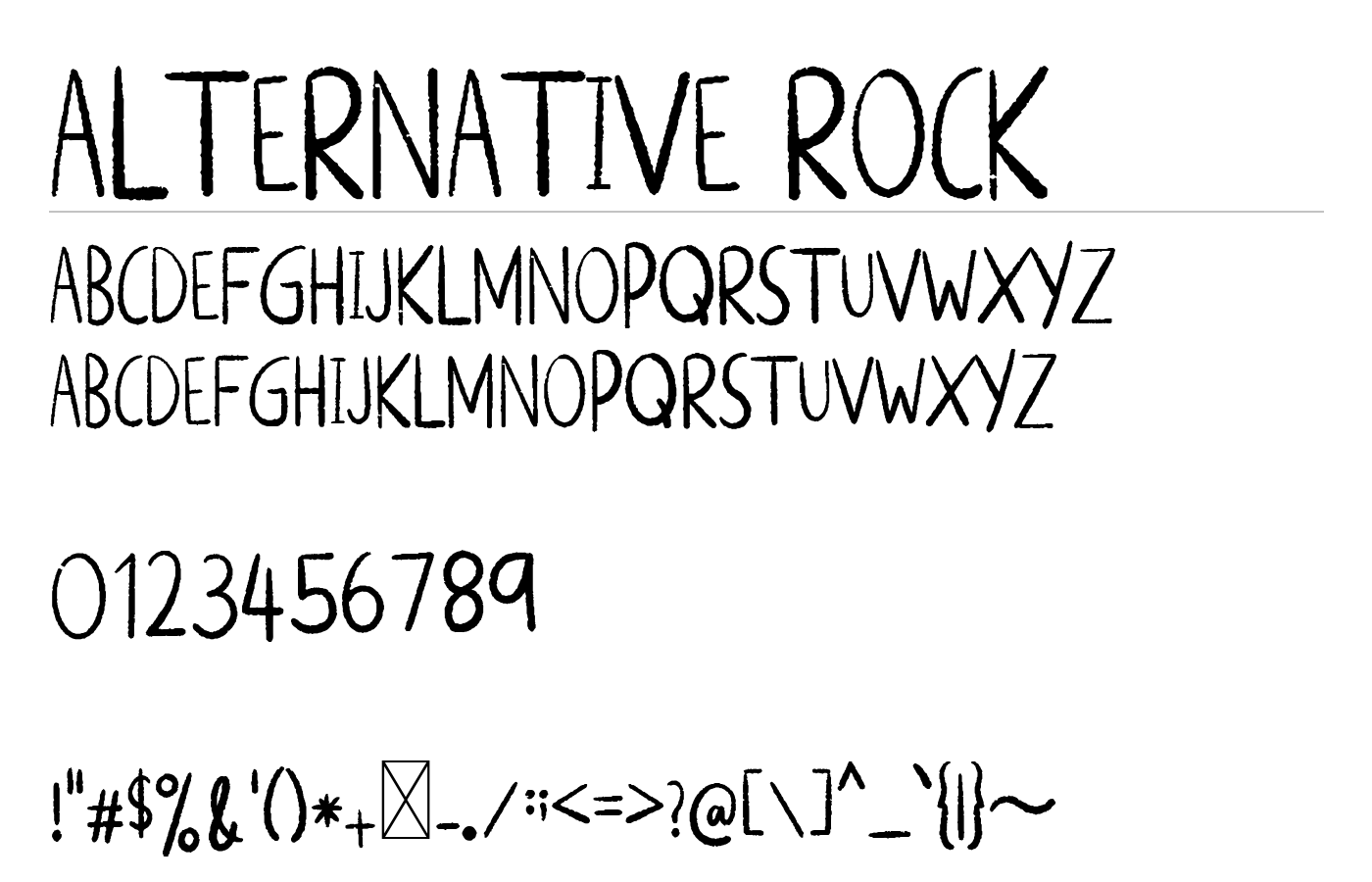
Alternative Rock is a quirky, hand-drawn sans serif font that brings a casual, playful vibe with its tall, narrow letterforms and uneven strokes. Its irregular shapes and slightly textured lines give it a raw, energetic feel, making it perfect for creative projects, youth-focused branding, or music-related designs that want to convey an edgy, authentic personality. This font works best in headlines or logos where a distinctive, informal touch is needed to stand out.
ALTERNATIVE ROCK Font
About ALTERNATIVE ROCK Font
| Font family | ALTERNATIVE ROCK Font |
| Designer | Khairil Anwar |